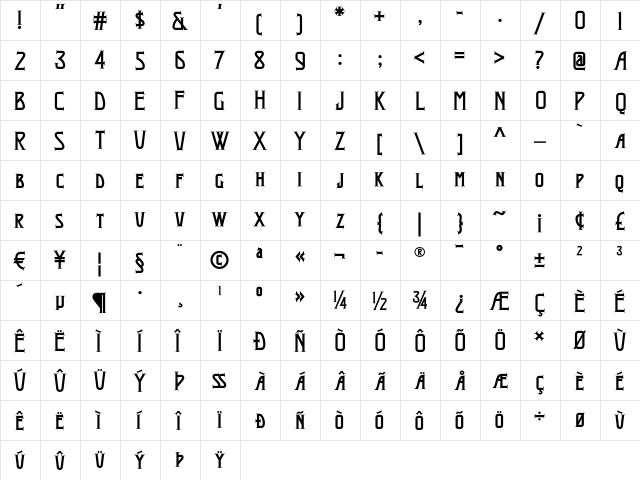
AnacostiaNF Regular
| Foundry | Nick Curtis |
Design Context for AnacostiaNF Typeface
AnacostiaNF is a composed and adaptable typeface that performs quietly and consistently across a wide range of design contexts.